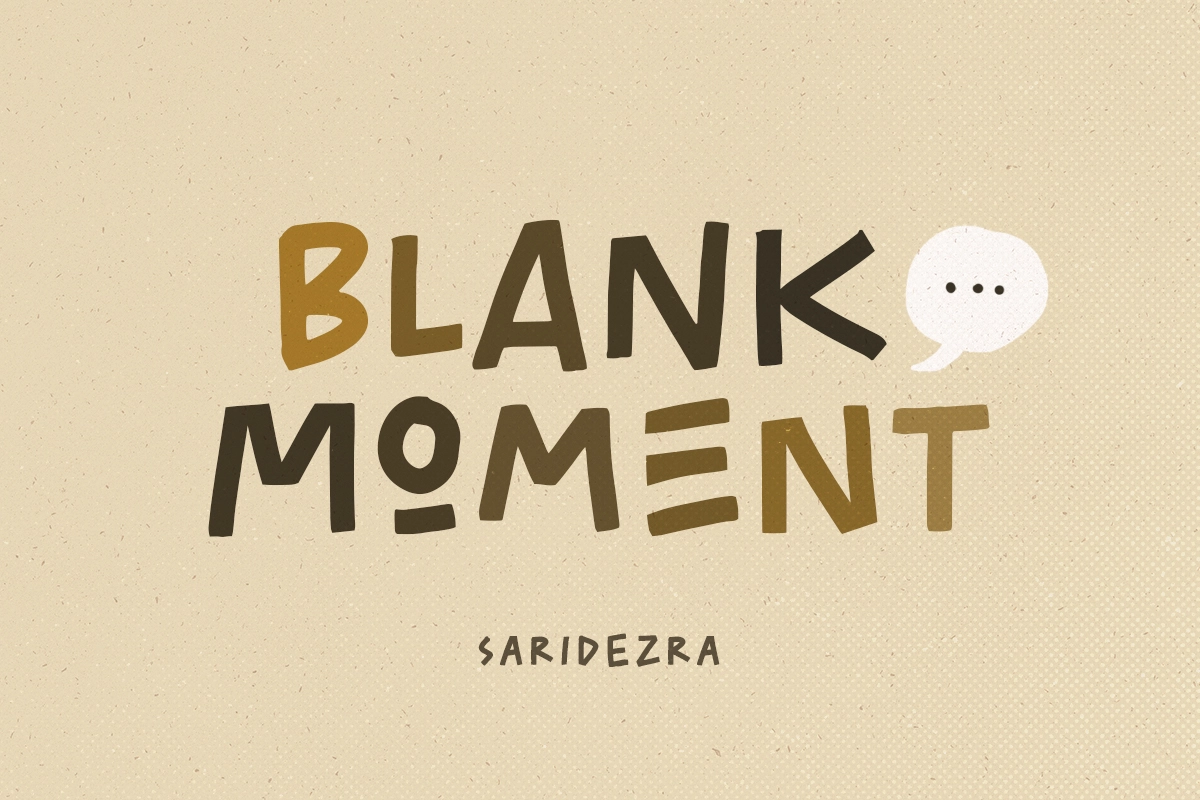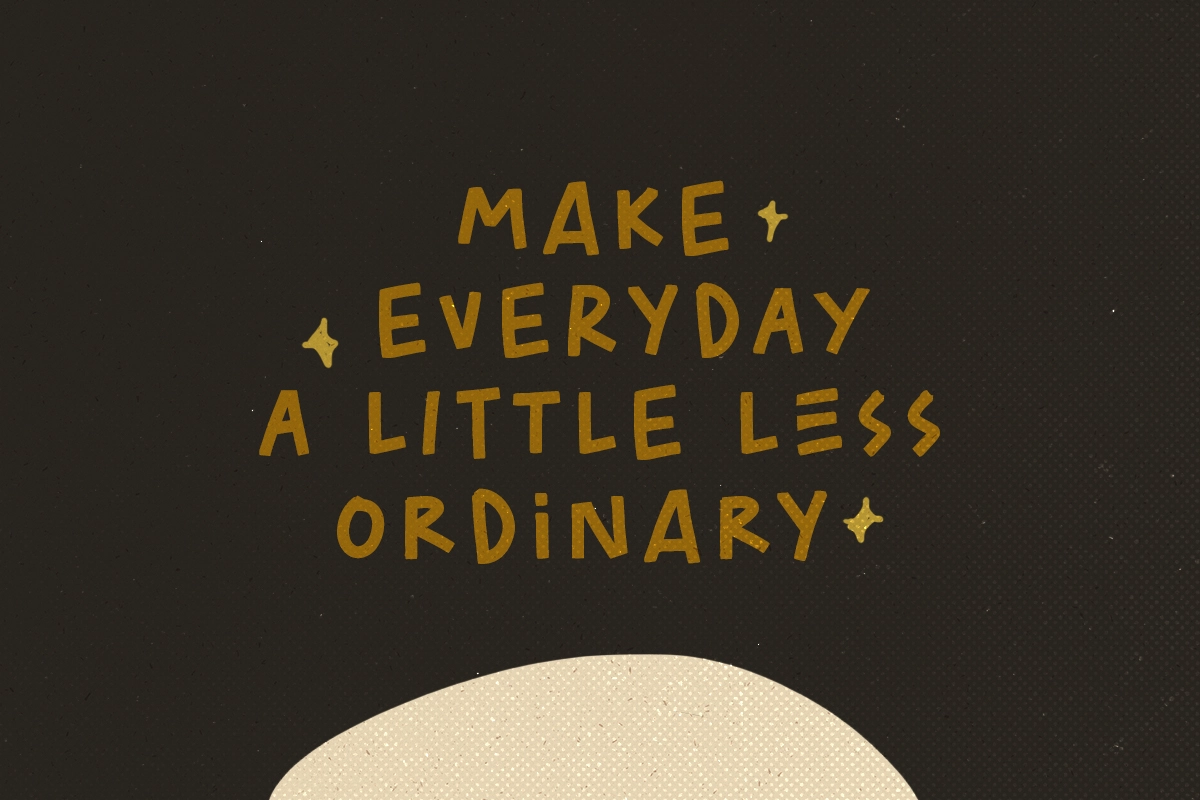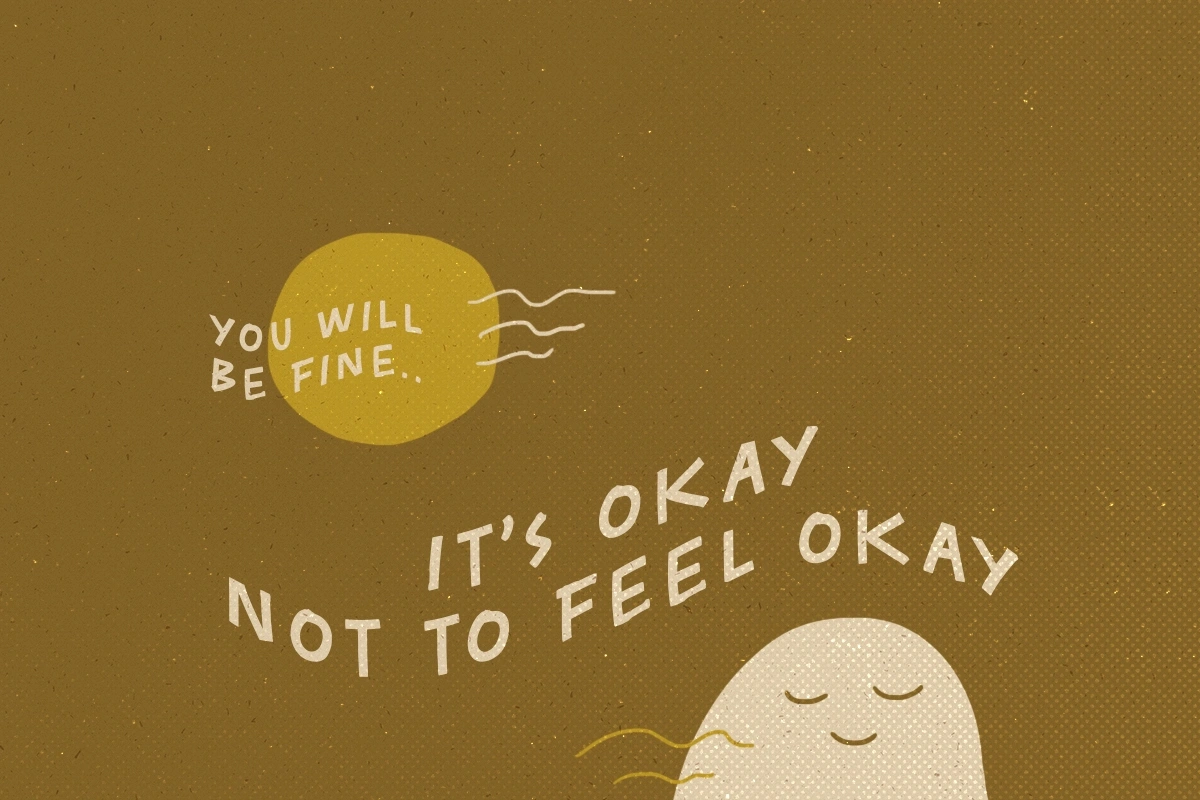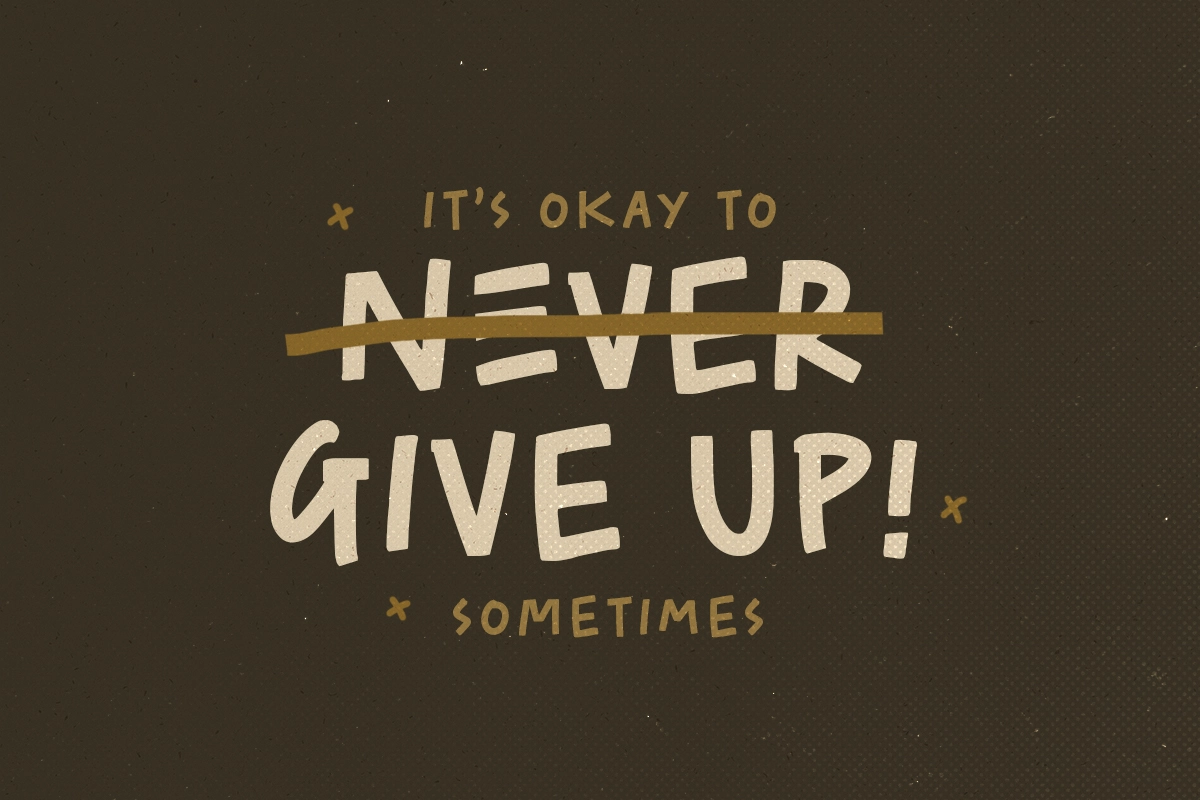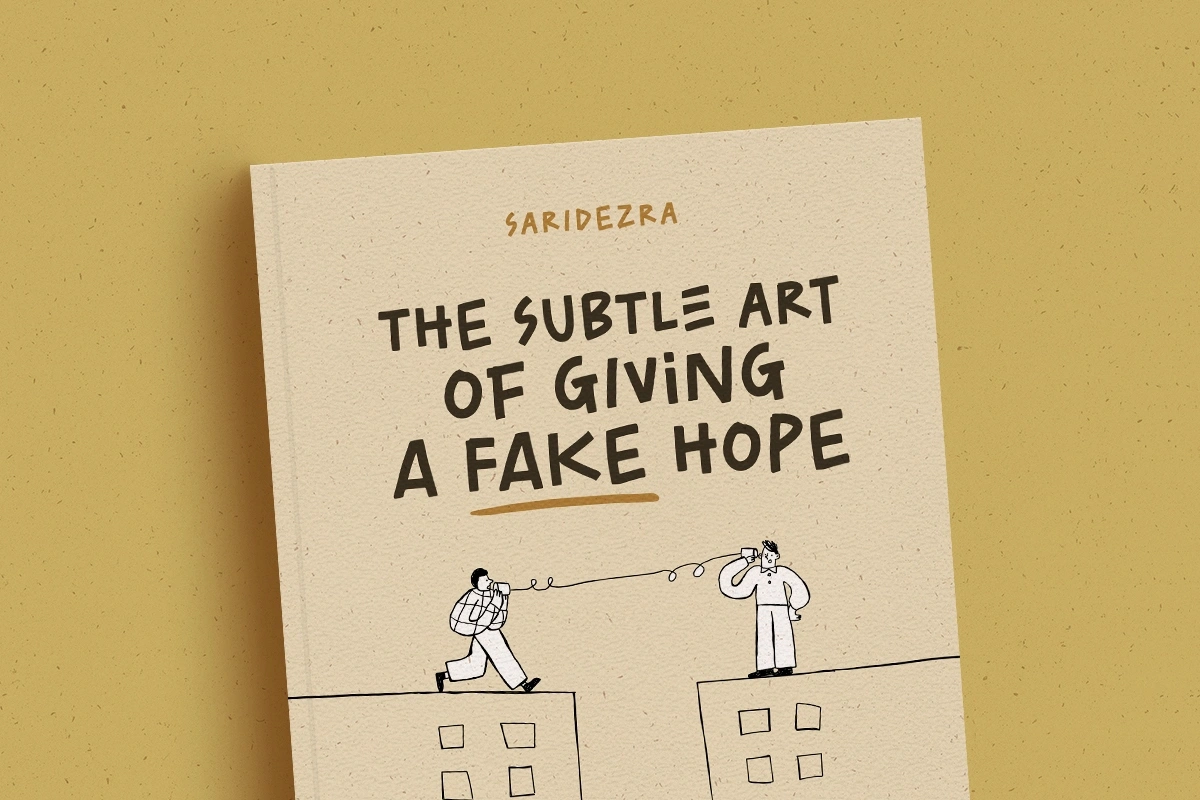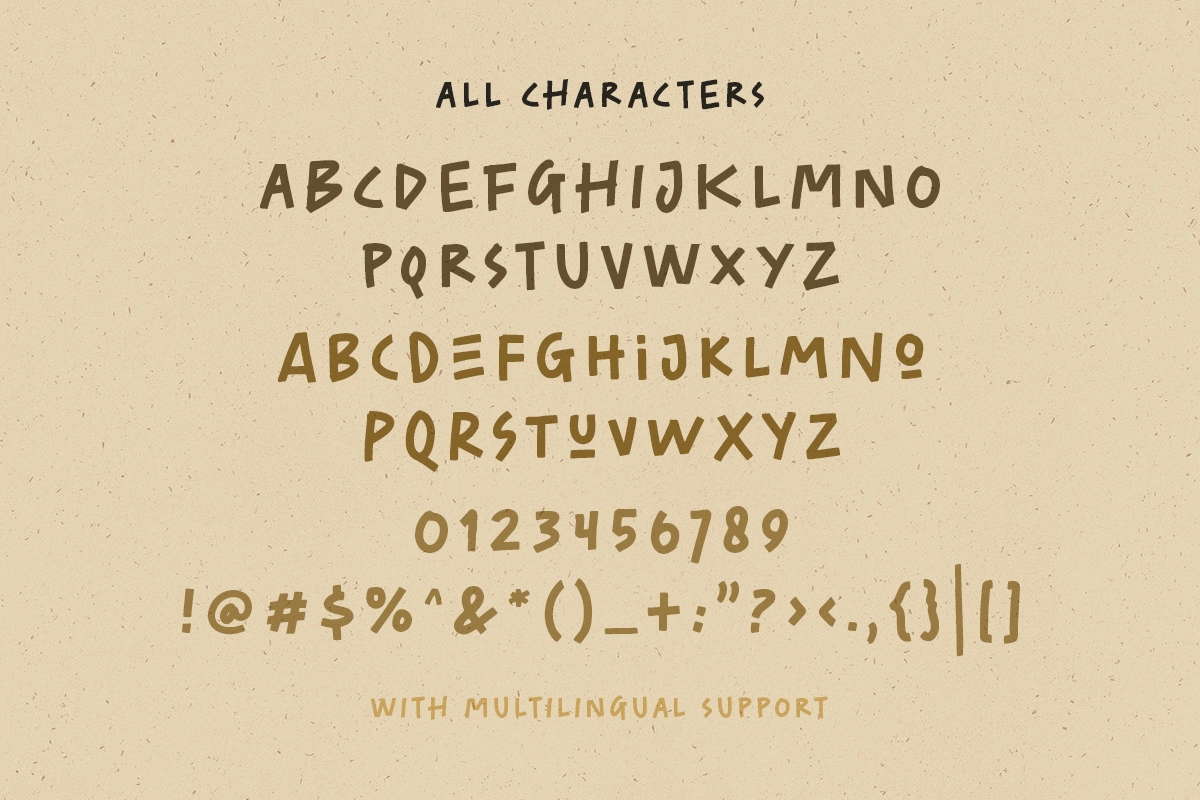
Blank Moment - Quotable Font
Blank Moment
Blank Moment is a quotable handwritten sans . You can use this font for any project. This font will make your project more natural and humanist. Blank Moment is a nice and never goes wrong choice for your instagram post! This font also contains unique lowercase that will make your project less ordinary. This font also support multilingual.